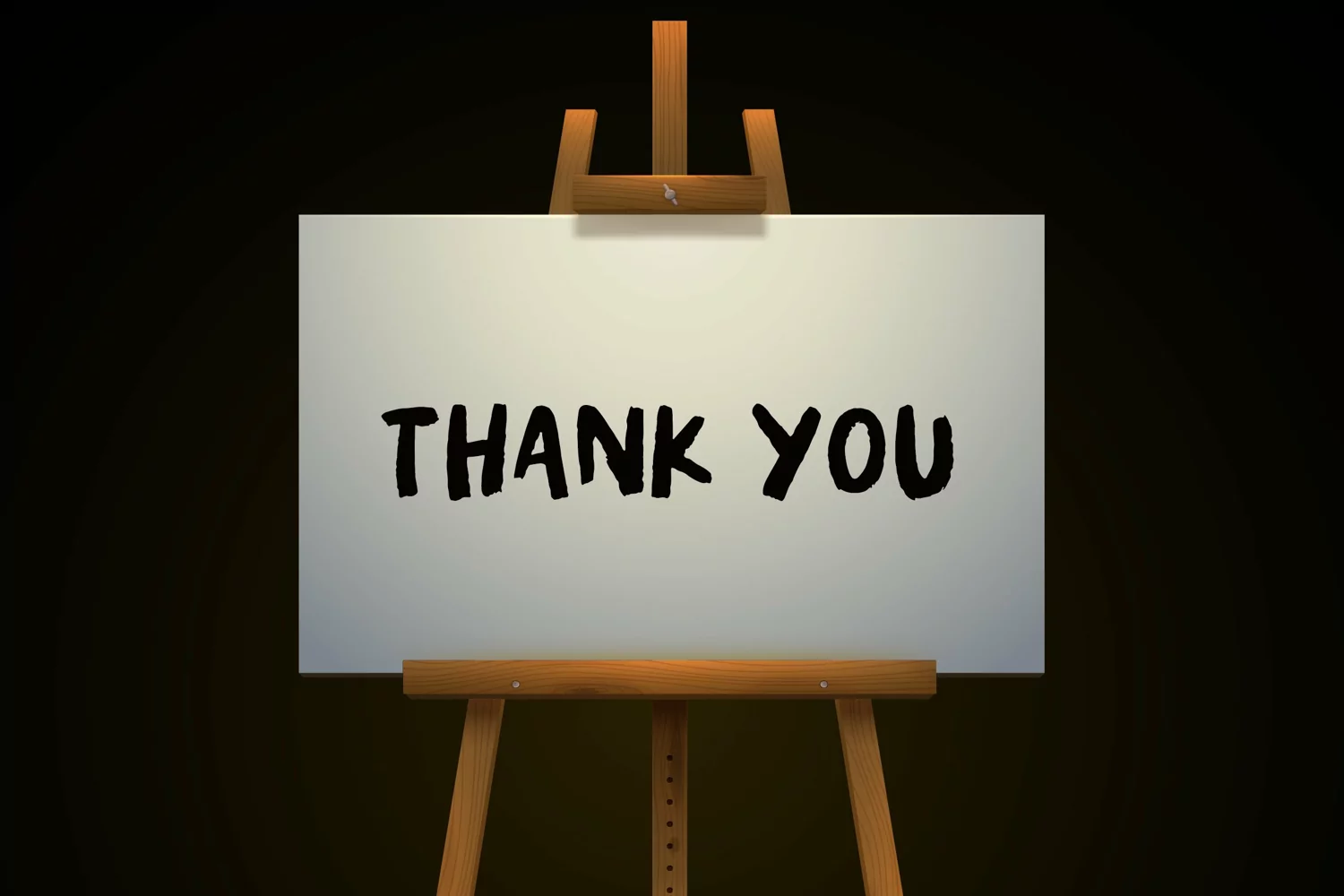
Seriously is a cool vintage horror font, ideal for giving your works a retro feel. This blocky display font works in both modern and retro designs and can add a whimsical appeal to your works.
Seriously